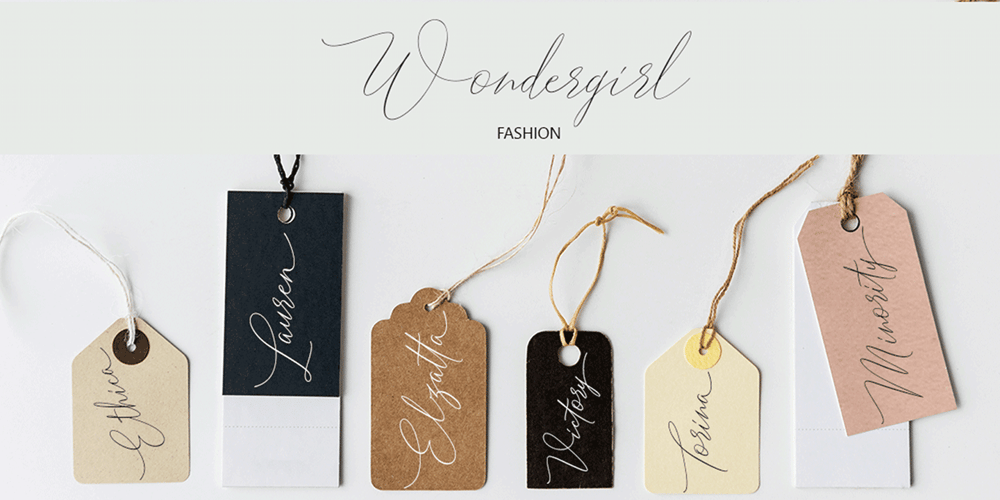
Chica Maravilla Font Family was designed by Roiyani Teungku and published by Artisan Studio. Chica Maravilla contains 1 styles and family package options. Chica Maravilla is a work that is purely a result of handwriting, and has a natural characteristic. This is perfect for invitations, signatures, blogs, social media, business cards, product brands. OpenType features can be accessed by using OpenType smart programs such as Adobe Photoshop, Adobe Illustrator, Adobe Indesign, Corel Draw and Microsoft Office.